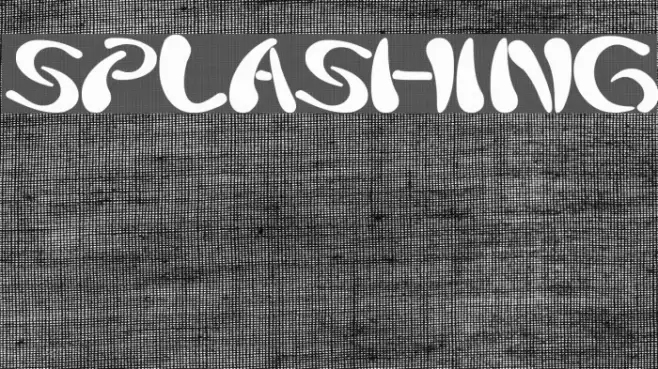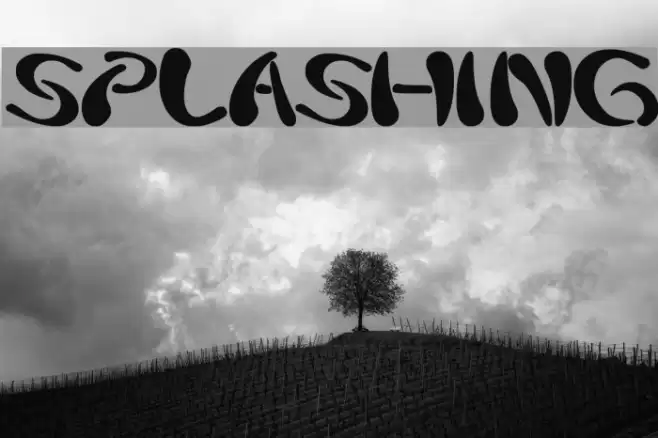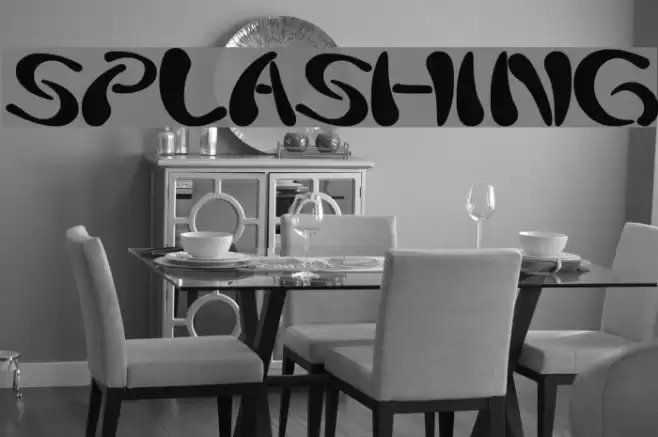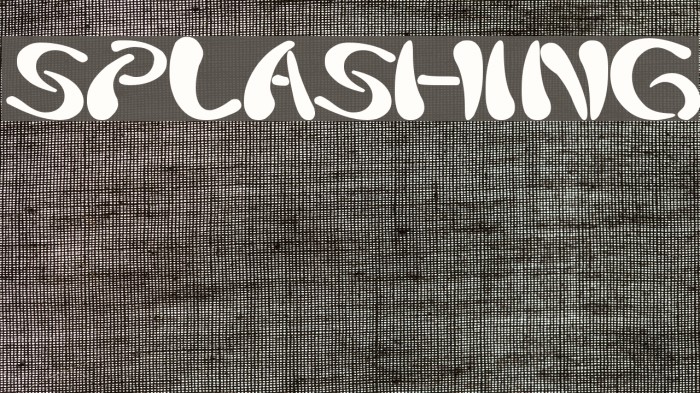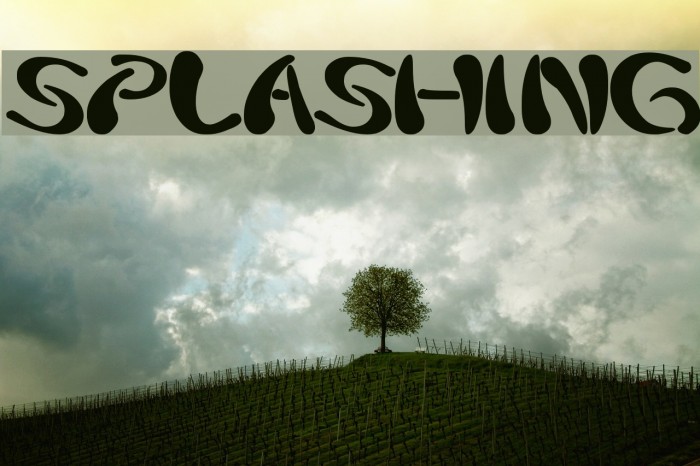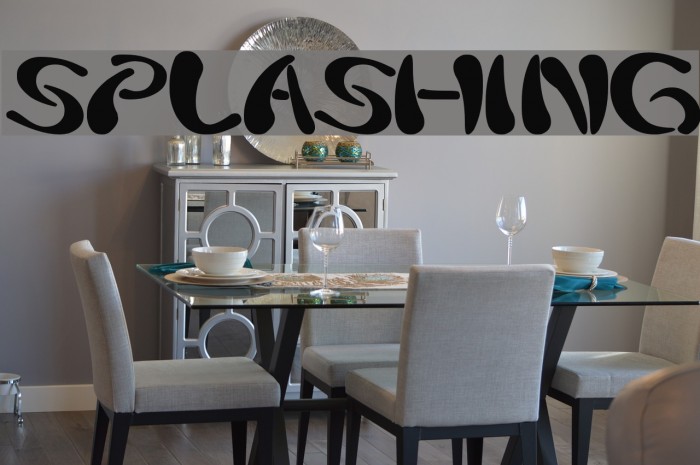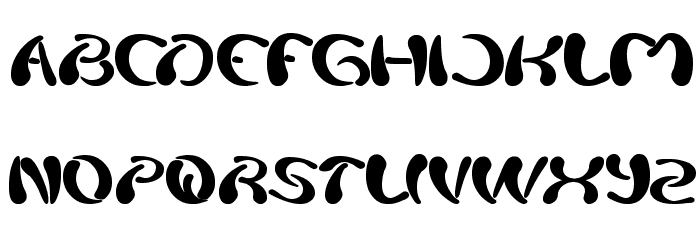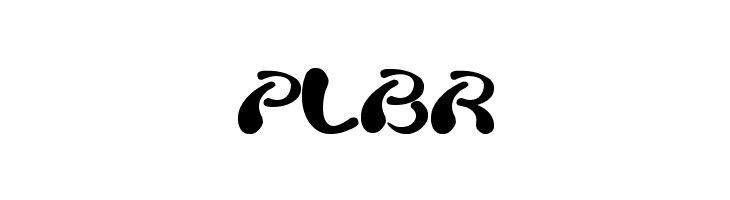
splashing Font
splashing Description
This font features a bold and playful design with a unique, fluid style that resembles splashes of ink or paint. Each character is crafted with thick, rounded strokes that create a sense of movement and energy. The letters have a whimsical and artistic appearance, making them stand out with their distinctive shapes. The overall look is both modern and creative, suitable for projects that require a touch of fun and originality. The font's design is consistent across all characters, maintaining a cohesive and harmonious aesthetic.
A bold, playful font with fluid, splash-like strokes from Uncategorized fonts.
- Proposed Projects: Ideal for creative projects such as posters, event invitations, children's book covers, and branding for artistic ventures.
- Overall Style: Modern, Artistic